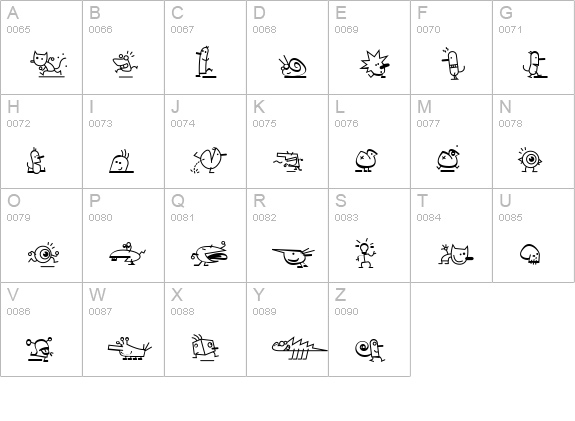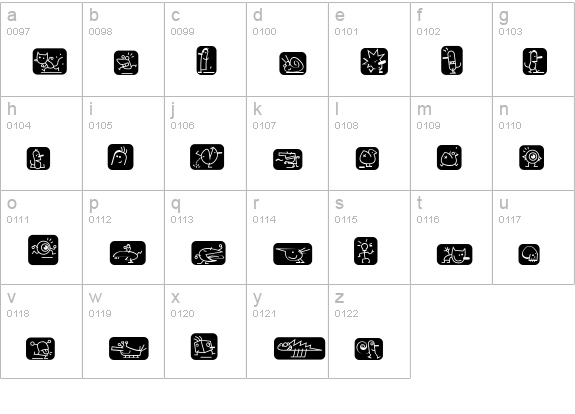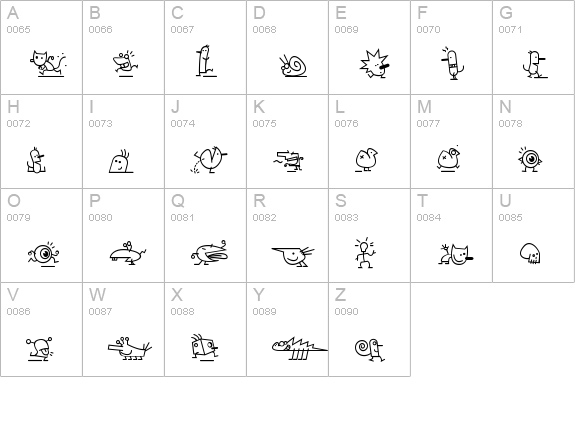
buddies Font Details
Immerse yourself in the world of creativity with Buddies Font, a charming and versatile typeface that exudes a sense of warmth and friendliness. Perfect for adding a personal touch to your designs, Buddies Font features a playful yet elegant style that is sure to capture attention. This delightful font is not only visually appealing but also incredibly easy to use, making it a fantastic choice for a wide range of projects. Whether you're designing a greeting card, crafting a logo, or working on a social media graphic, Buddies Font will bring a touch of whimsy and charm to your work. And the best part? Buddies Font is completely free to download at FontsMarket.com! So why wait? Add this delightful typeface to your collection today and let your creativity soar with Buddies Font.